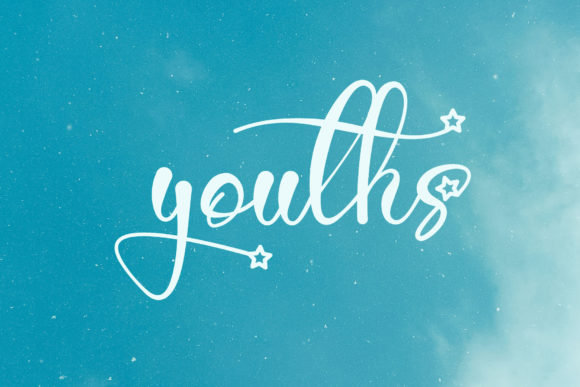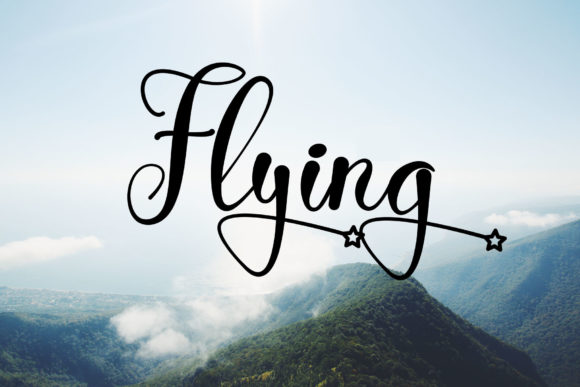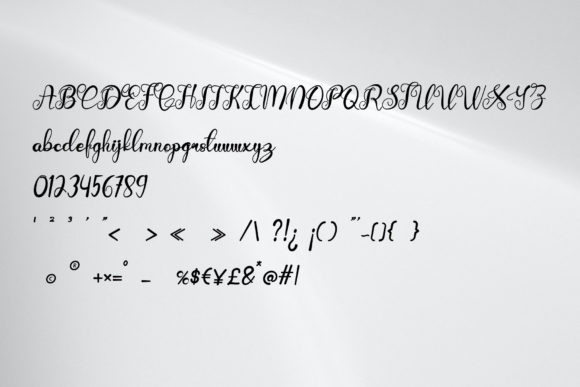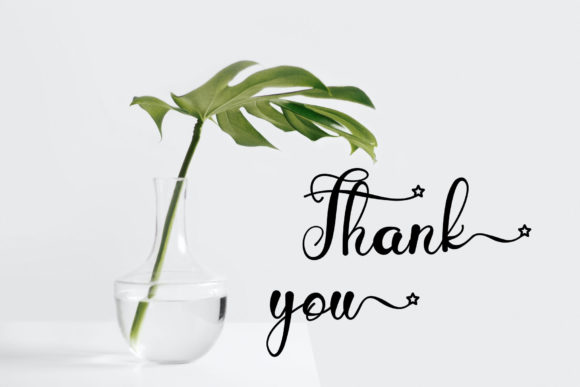
Have you ever stared at a blank page, feeling the weight of an upcoming deadline and the pressure to create something truly special? We’ve all been there. But sometimes, all it takes is the right tool to spark that creative magic. For fashion branding and editorial designs, we’ve found the perfect script font to get you started: Bitterly Fody Font.
This beautiful, vintage styled script font is defined by its smooth curves and perfect balance, making it an instant hit with designers. With its PUA encoding, you can access all of the glyphs and swashes with ease, giving you the freedom to create stunning designs that truly stand out. Whether you’re working on a high-end fashion campaign or a lifestyle editorial, Bitterly Fody Font is the perfect addition to your design arsenal.
- Unique Characteristics: Bitterly Fody Font features a unique blend of modern and vintage elements, with intricate details and subtle texture.
Bitterly Fody Font Review
As a designer, I have had the chance to work with the Bitterly Fody Font, and I must say it’s an interesting addition to any typography collection. ✨ The font’s unique blend of modern and vintage elements makes it stand out from more traditional sans-serif fonts.
Here are some of the things I like about Bitterly Fody Font:
- ✨ The font’s bold and italic weights are great for making headings stand out.
- ✨ The subtle texture and imperfections give the font a unique, handcrafted feel.
- ✨ The font’s versatility makes it suitable for a wide range of projects, from editorial design to branding.
- ⚠️ The font may be too bold for some projects, making it difficult to read at smaller sizes.
- ⚠️ The font’s texture and imperfections may not be suitable for projects where a clean, minimalist look is desired.
- ⚠️ The font may require some customization to fit specific design needs.
Overall, I think Bitterly Fody Font is a great addition to any designer’s toolkit. While it may not be perfect for every project, its unique qualities make it a great choice for designers looking to add some personality to their work.
Getting the Most Out of the Bitterly Fody Font
To get the most out of the Bitterly Fody Font, try using it in combination with bold or italic text to add emphasis.
Also, experiment with different font sizes and colors to create visual interest.
The Bitterly Fody Font is well-suited for use in creative projects such as:
- Blog posts and articles.
- Infographics and social media graphics.
- Book covers and magazine layouts.